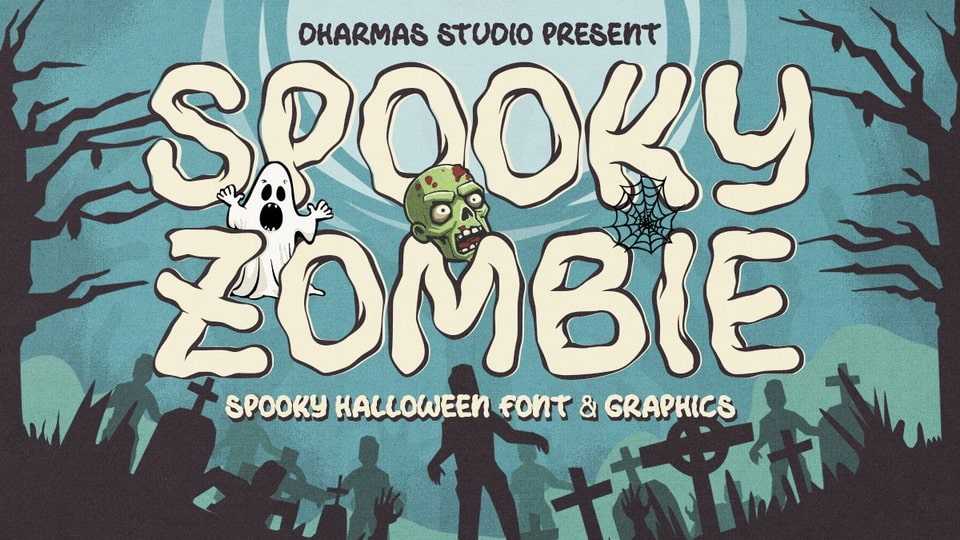
Download Spooky Zombie font, a typeface that’s ready to cast a spooky spell on your designs, the perfect choice for all your Halloween-related projects.